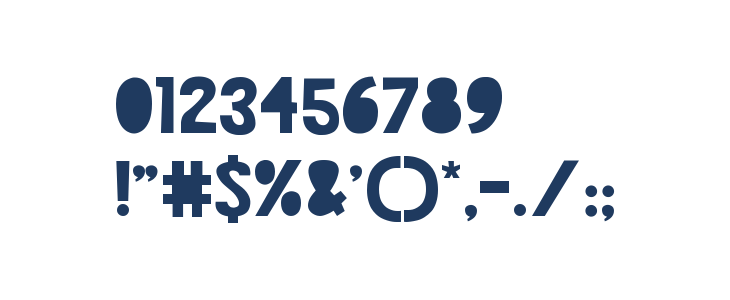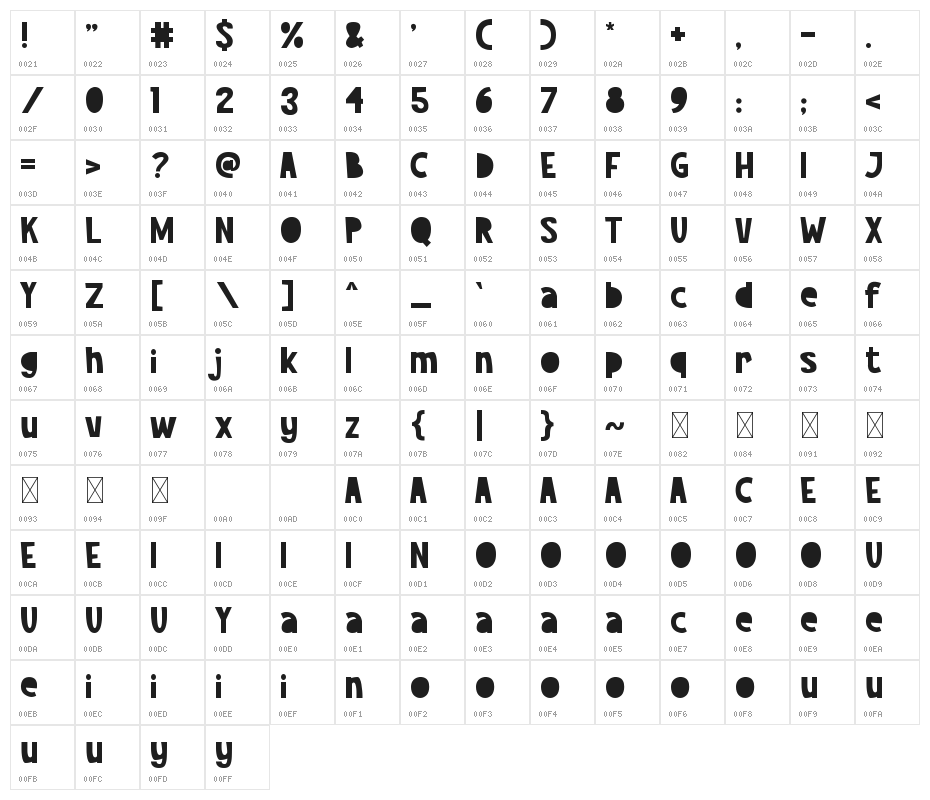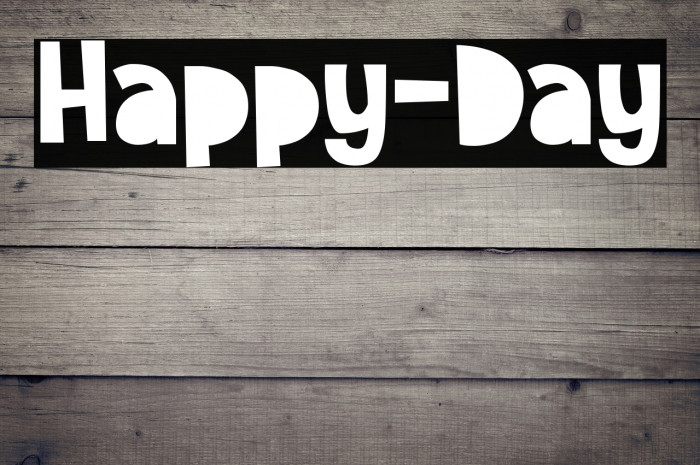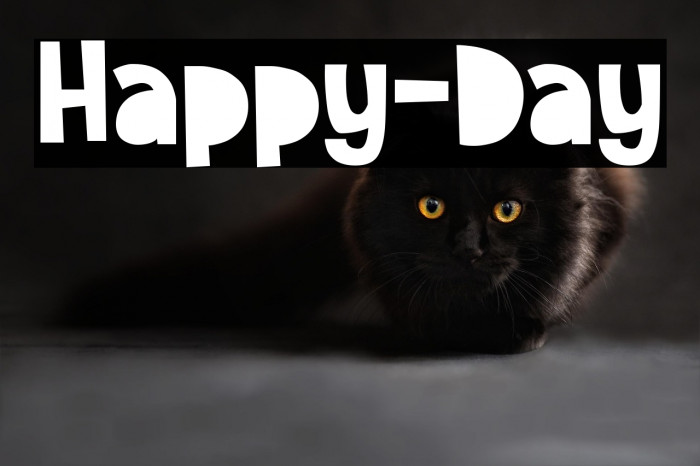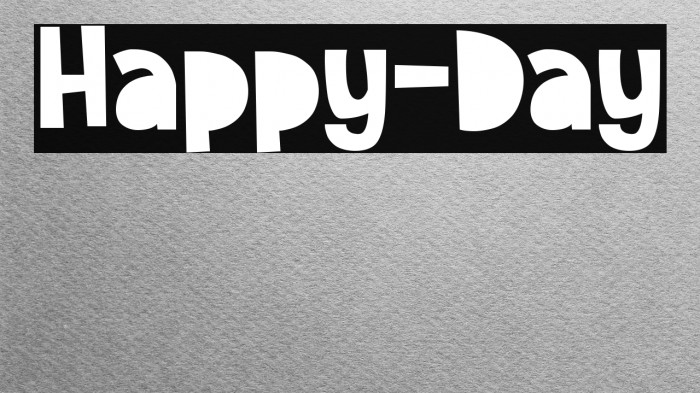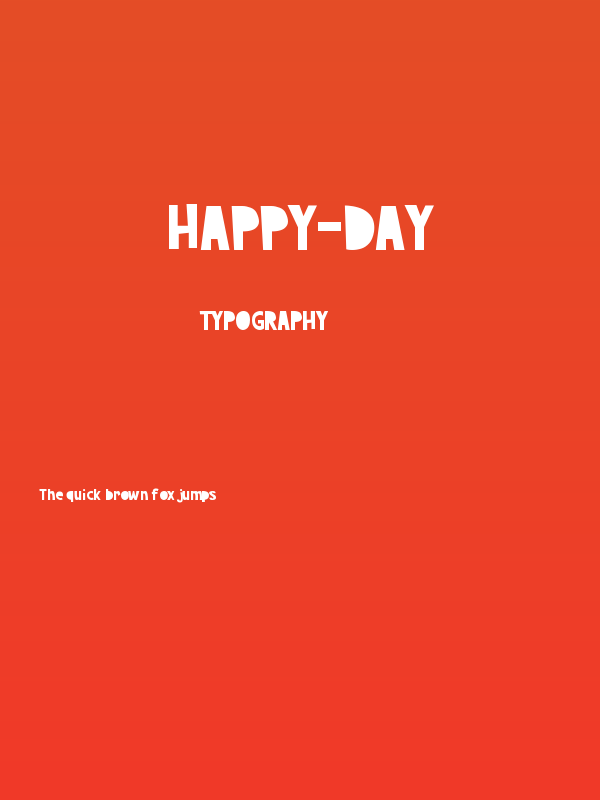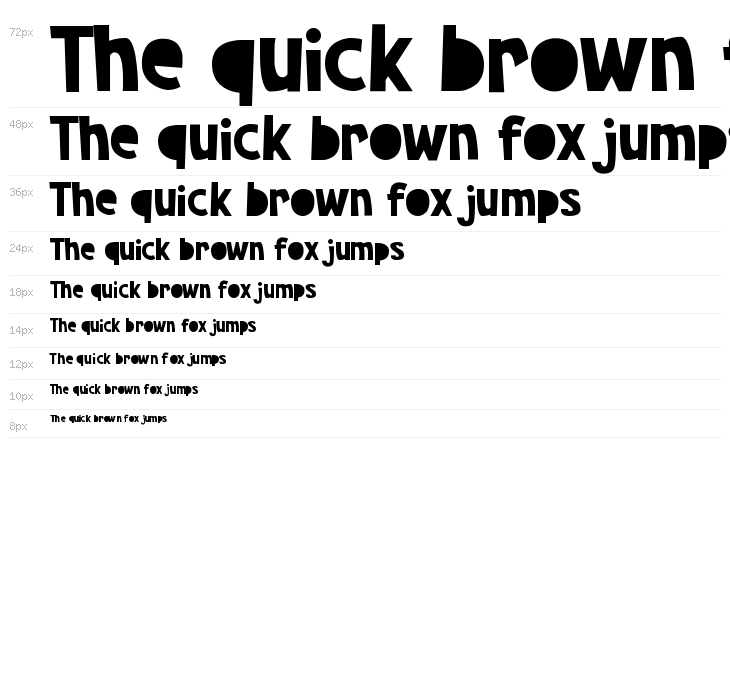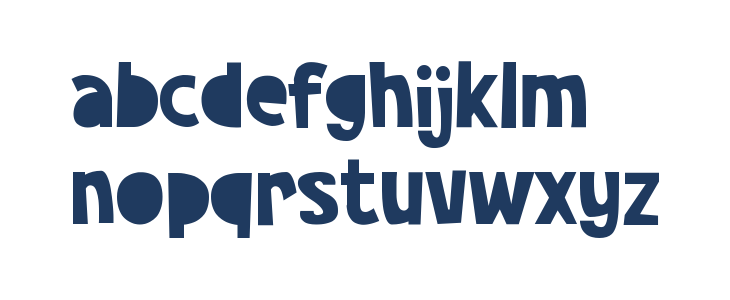
Happy-Day Font
Happy-Day Description
This playful and bold font features a whimsical design with exaggerated curves and varying stroke widths, giving it a lively and dynamic appearance. The characters are slightly irregular, adding a sense of fun and spontaneity. The uppercase letters are robust and commanding, while the lowercase letters maintain a friendly and approachable feel. The numerals are equally bold, ensuring readability and impact. Special characters are creatively designed to match the overall playful theme. This font is perfect for projects that require a touch of humor and creativity.